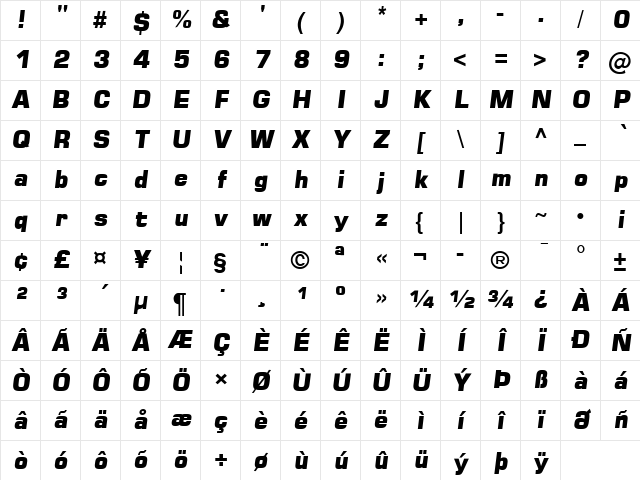
Square 721 Blk Italic
Complete Square 721 Blk Italic glyph index. Displaying only characters natively supported by Square 721 Blk Italic font.
Design Context for Square 721 Blk
Square 721 Blk is a composed and adaptable typeface that performs quietly and consistently across a wide range of design contexts. The slanted form adds forward momentum and visual energy.
Pro Tip: Use Square 721 Blk for emphasis, pull quotes, and subheadings where its slanted energy can add rhythm to the layout.